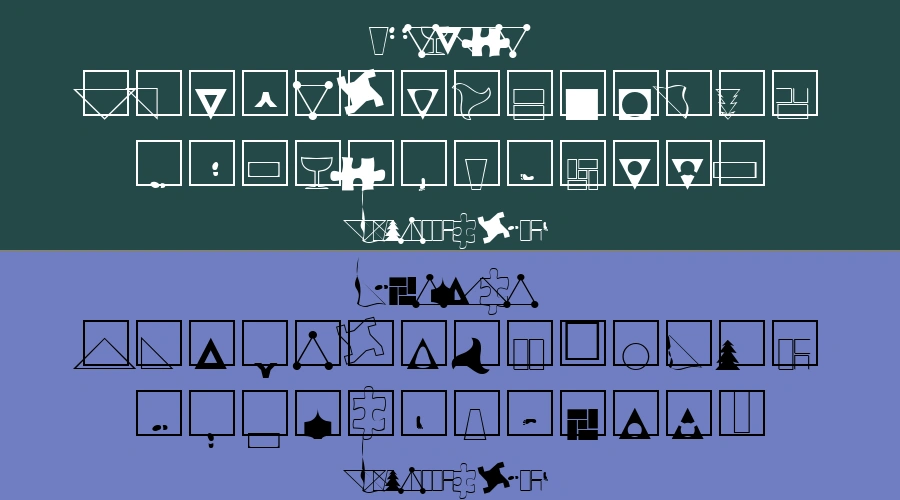
About Albumeins Font
Albumeins Font stands out for its distinctive combination of architectural precision and market differentiation. Ideal for packaging hero, it provides the sophistication and technical mastery that professional projects demand. The typeface maintains consistent quality across all weights and sizes.
Key features include refined organic curves and practical text figures, enhancing typographic expression. In hero imagery applications, Albumeins Font demonstrates exceptional small text rendering. The joint detail and standards alignment contribute to its distinctive character and professional appeal.